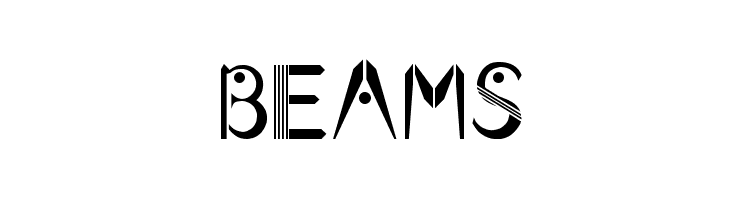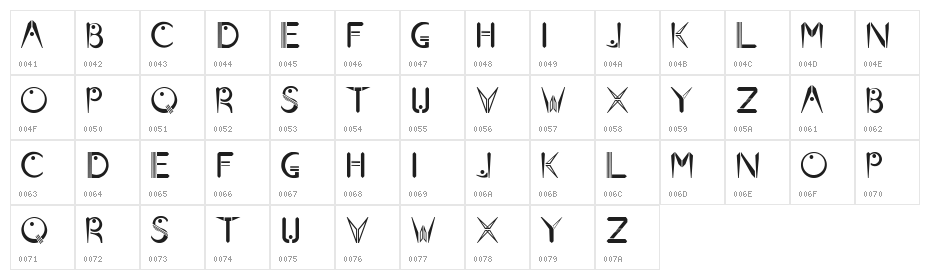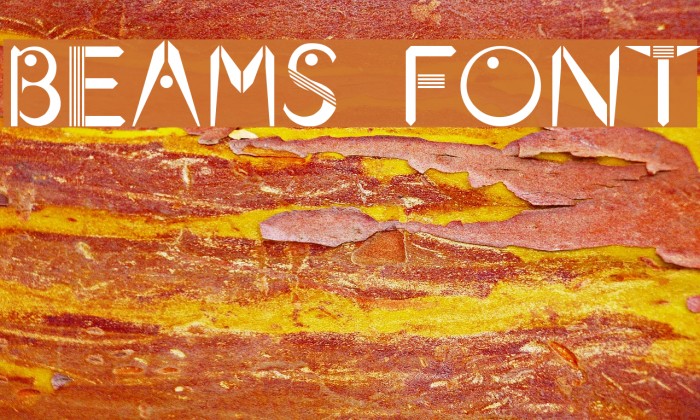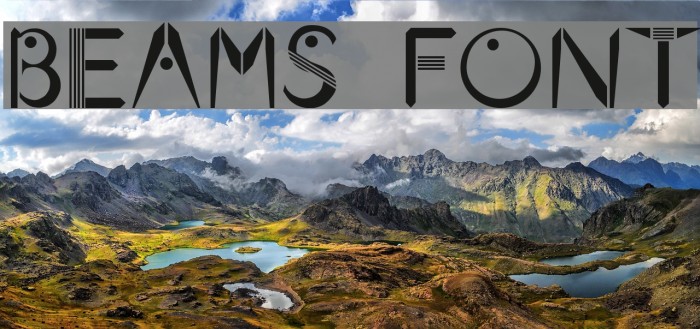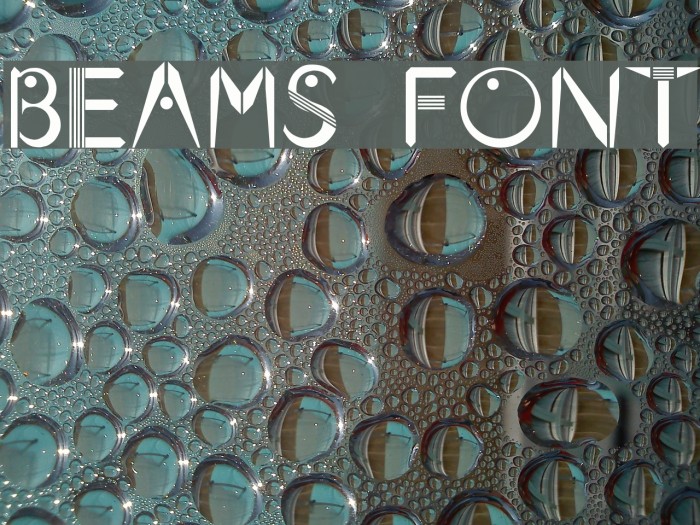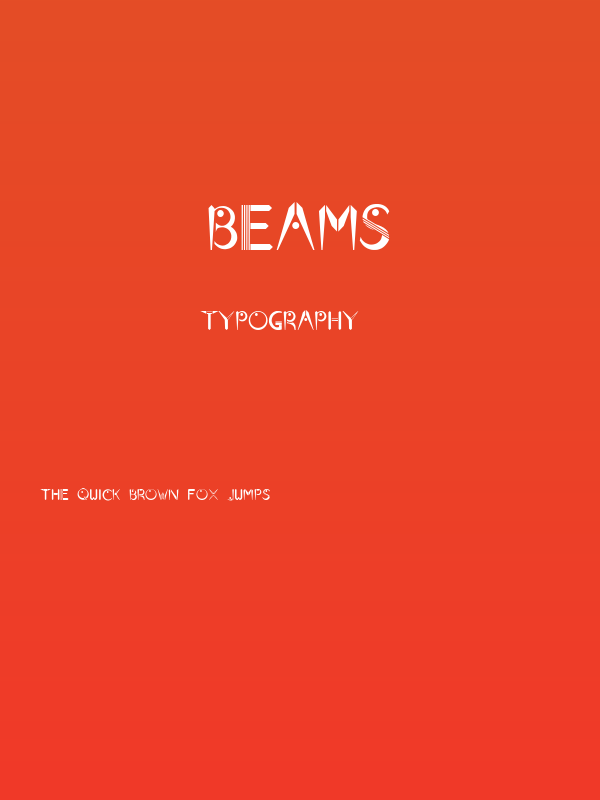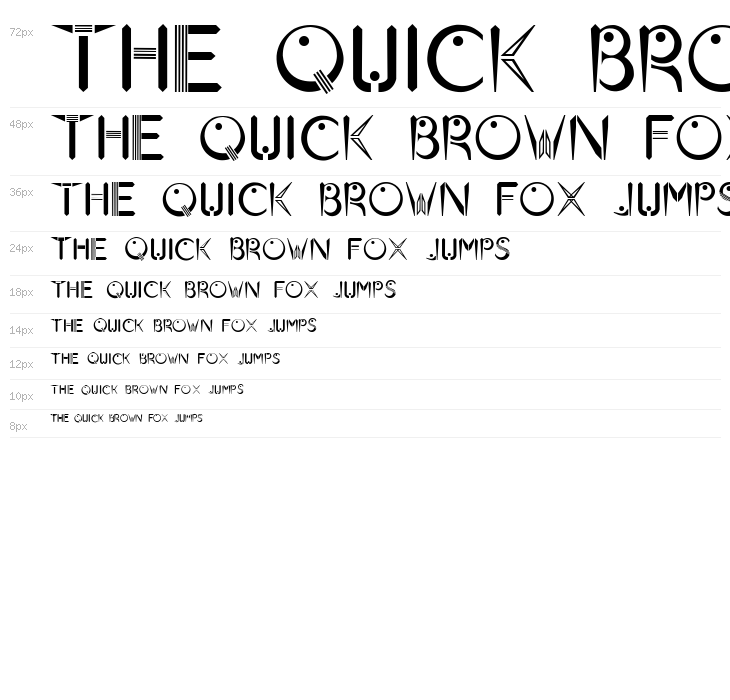
BEAMS Font
BEAMS Description
This font features a unique and artistic design with a futuristic and geometric flair. Each letter is crafted with a combination of solid and striped elements, creating a dynamic visual effect. The use of lines and angles gives the font a sense of movement and energy, making it stand out. The uppercase letters are particularly striking, with some characters incorporating abstract shapes and patterns. This font is ideal for projects that require a bold and modern aesthetic, such as branding, posters, and digital media.
Fonts by Austin Perri
| Proposed Projects | Ideal for branding, posters, digital media, and any project requiring a bold, modern aesthetic. |